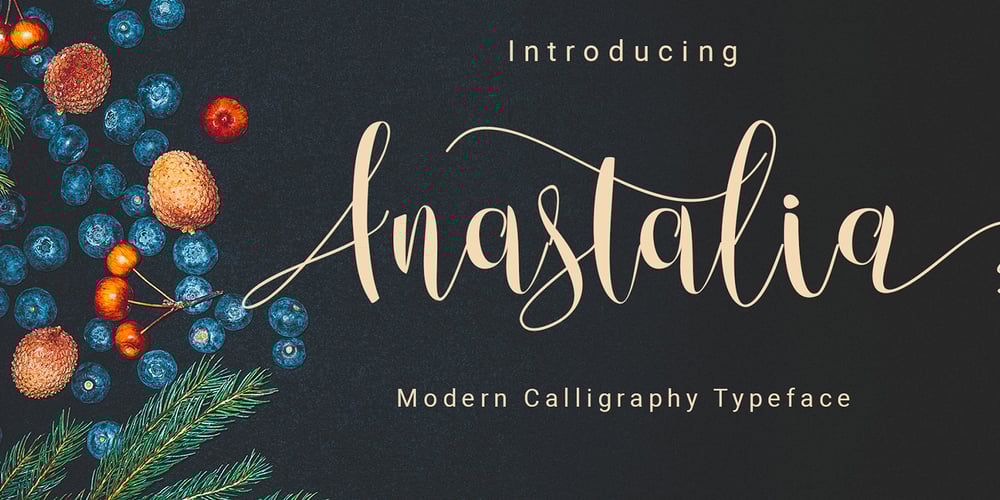
Anastalia Script Font Family was designed by Muhammad Ilham and published by OldStudioo. Anastalia Script contains 1 styles and family package options. Hi … Introducing the latest styles Anastalia Script with the kind of modern hand scratches, I hope you are interested in this font, if you want to use for your work this font can be used easily and simply because there are a lot of features in it to contain a complete set of letters lower and uppercase letters, assorted punctuation, numbers, and multilingual support. font also contains several ligatures and alternate style Stylistic Sets for those of you who have software that is able to work OpenType (Photoshop / Illustrator / InDesign).Anastalia Script is suitable use for market design developed at this time, this font has a model Trendy, natural and gentle, with this font you can take advantage of the opportunity in every moment of one wonderful way to highlight the celebration of the feast of your best, because this font will be advocates for purposes such as wedding invitations, party, graduation, birthday, gathering, etc.This Font has given PUA unicode (specially coded fonts).Thanks!